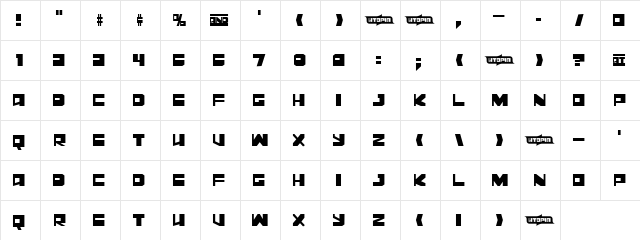
Leningrad Disco Regular
Design Context for Leningrad Disco Typeface
Leningrad Disco is a composed and adaptable typeface that performs quietly and consistently across a wide range of design contexts.